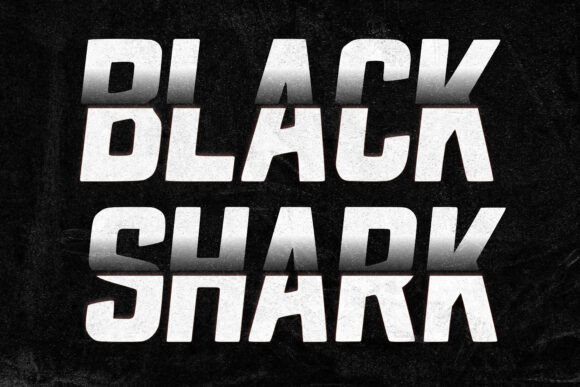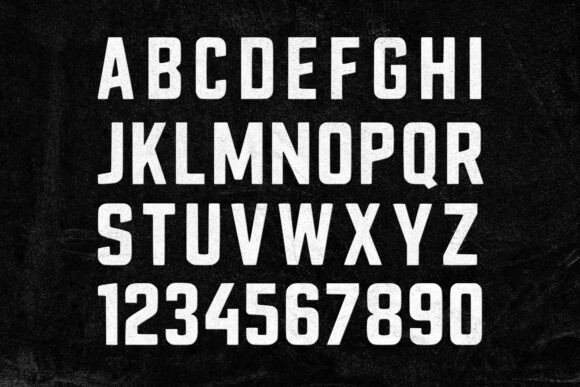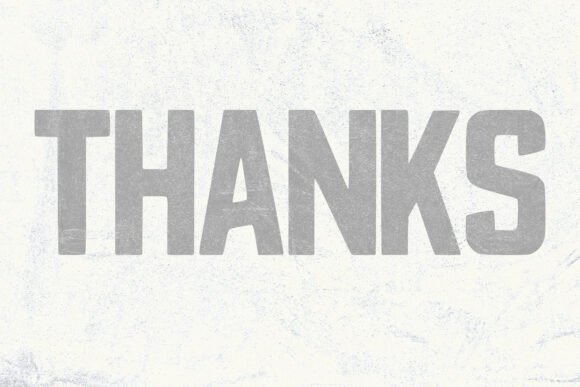
Unleash Your Design Potential with Black Shark Font
In the world of typography, a font can make or break a design. When it comes to making a bold statement, few typefaces can match the impact of Black Shark Font. This bold, powerful display typeface is built for impact, making it perfect for sports branding, streetwear designs, gaming titles, logos, posters, and high-energy typography.
Geometric Structure and Squared Curves
Black Shark Font boasts a strong geometric structure, squared curves, and a heavy presence that demands attention. Its modern industrial feel is characterized by tight spacing and sharp edges, making it an ideal choice for designers looking to add a fearless, masculine, and confident touch to their work.
Perfect for High-Energy Designs
Whether you’re creating merchandise, headlines, or digital graphics, Black Shark Font delivers a bold and eye-catching look that stands out instantly. Its versatility makes it suitable for a wide range of applications, from sports branding and streetwear designs to gaming titles and posters.
Key Features of Black Shark Font
- Bold and Powerful: Black Shark Font is designed to make a statement, with a strong geometric structure and heavy presence.
- Modern Industrial Feel: Tight spacing and sharp edges give the font a modern industrial look.
- Fearless and Masculine: The font exudes a fearless, masculine, and confident vibe, perfect for high-energy designs.
- Versatile: Suitable for a wide range of applications, including sports branding, streetwear designs, gaming titles, logos, posters, and more.
Tips for Using Black Shark Font
To get the most out of Black Shark Font, here are some tips to keep in mind:
- Use it for Headlines: Black Shark Font is perfect for headlines, titles, and captions where you want to make a bold statement.
- Pair it with Contrasting Fonts: Pair Black Shark Font with contrasting fonts to create visual interest and hierarchy in your design.
- Experiment with Colors: Try out different colors and gradients to add depth and dimension to your design.
- Keep it Simple: Don’t be afraid to keep things simple and use Black Shark Font on its own to make a statement.
Who Can Benefit from Black Shark Font?
Black Shark Font is perfect for designers, crafters, and businesses looking to add a bold and fearless touch to their work. This includes:
- Sports Teams and Brands: Create bold and eye-catching logos, jerseys, and marketing materials.
- Streetwear Designers: Add a fearless and masculine touch to your apparel and accessory designs.
- Game Developers: Create bold and attention-grabbing titles, logos, and in-game graphics.
- Graphic Designers: Add a bold and industrial touch to your designs, from posters to digital graphics.
| Font Name | Black Shark Font |
| Author | basyar |
In conclusion, Black Shark Font is a bold, powerful display typeface that is perfect for designers and crafters looking to make a statement. Its strong geometric structure, squared curves, and heavy presence make it ideal for high-energy designs, from sports branding and streetwear designs to gaming titles and posters. With its versatility, modern industrial feel, and fearless, masculine vibe, Black Shark Font is sure to unleash your design potential and take your work to the next level.